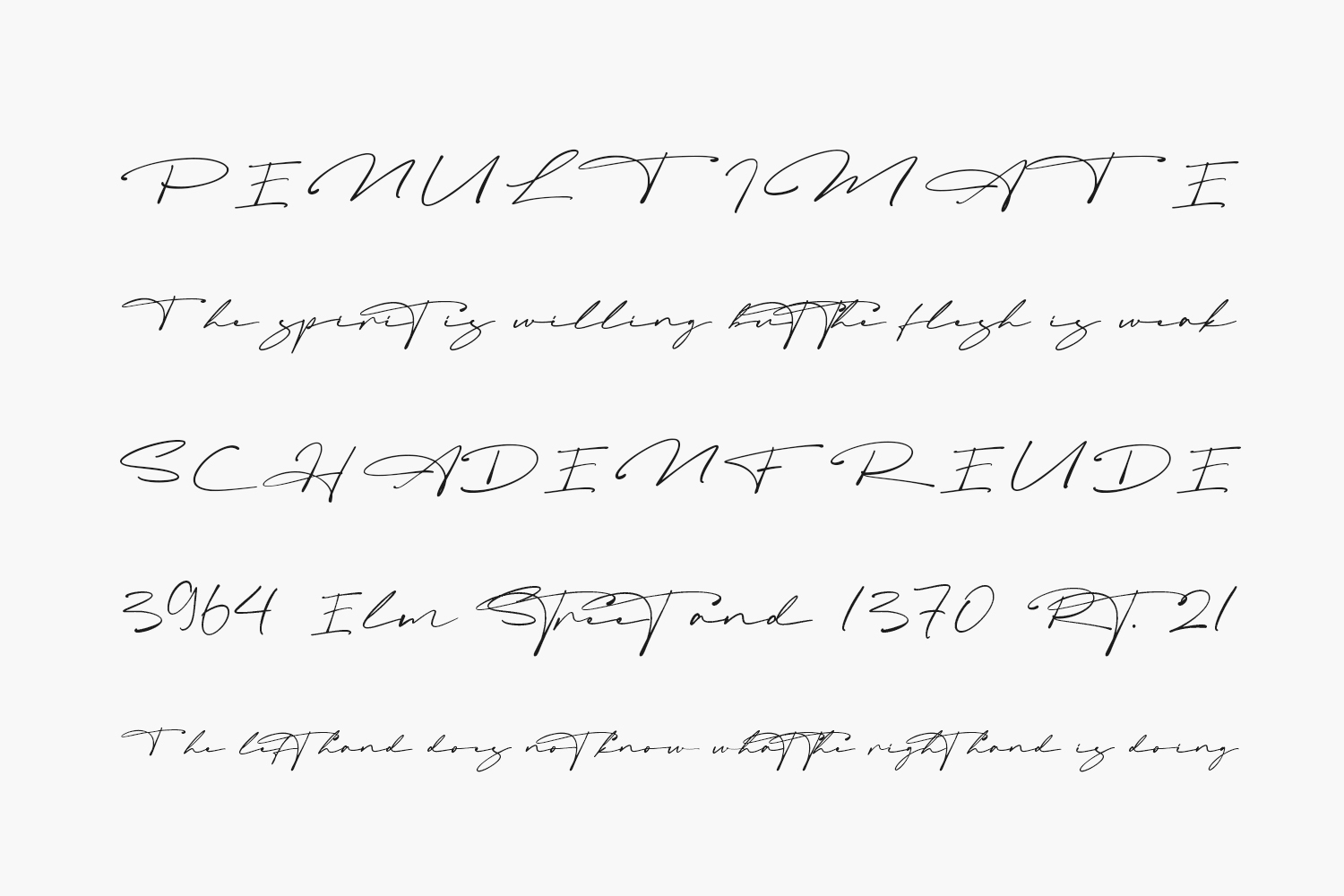
Mastrih Signature Font
Mastrih Signature Font - Web mastrih font is an amazing signature typeface designed by vultype co. You are requires a license for promotional or commercial use. Be very careful and take the time to read any. This font is only for personal use.